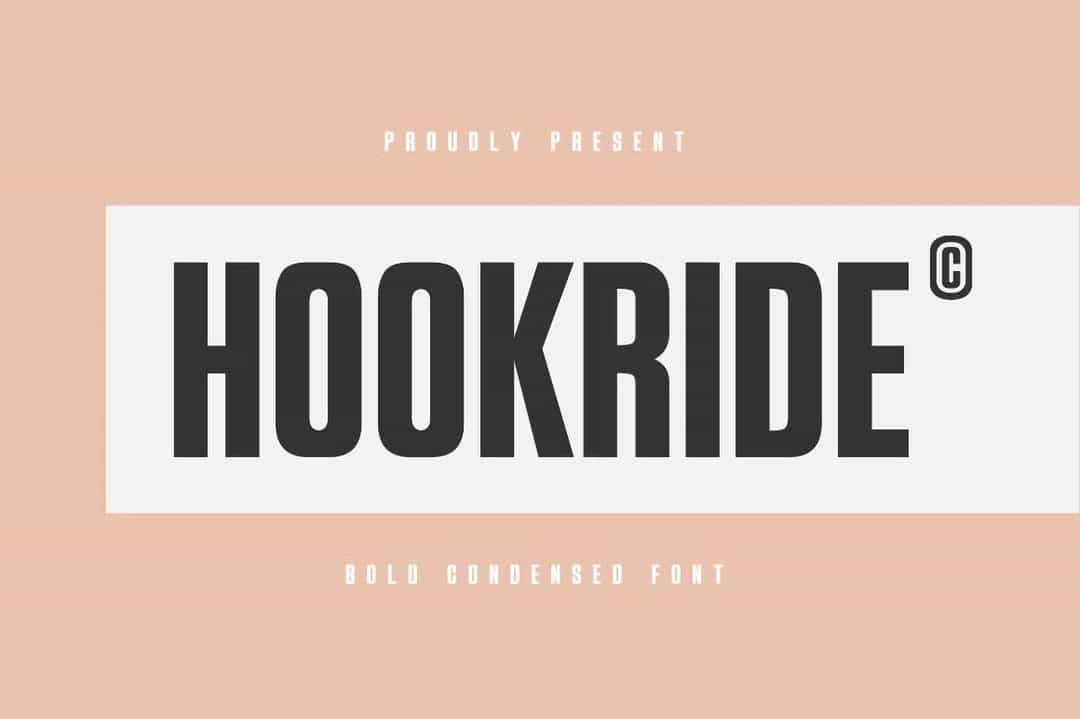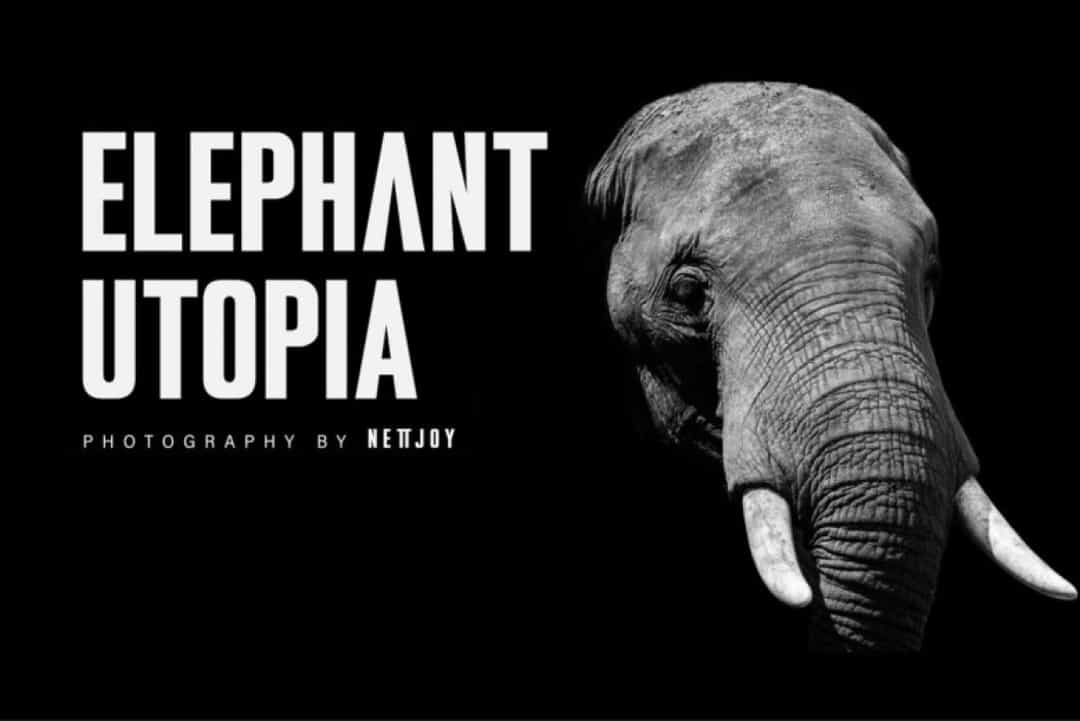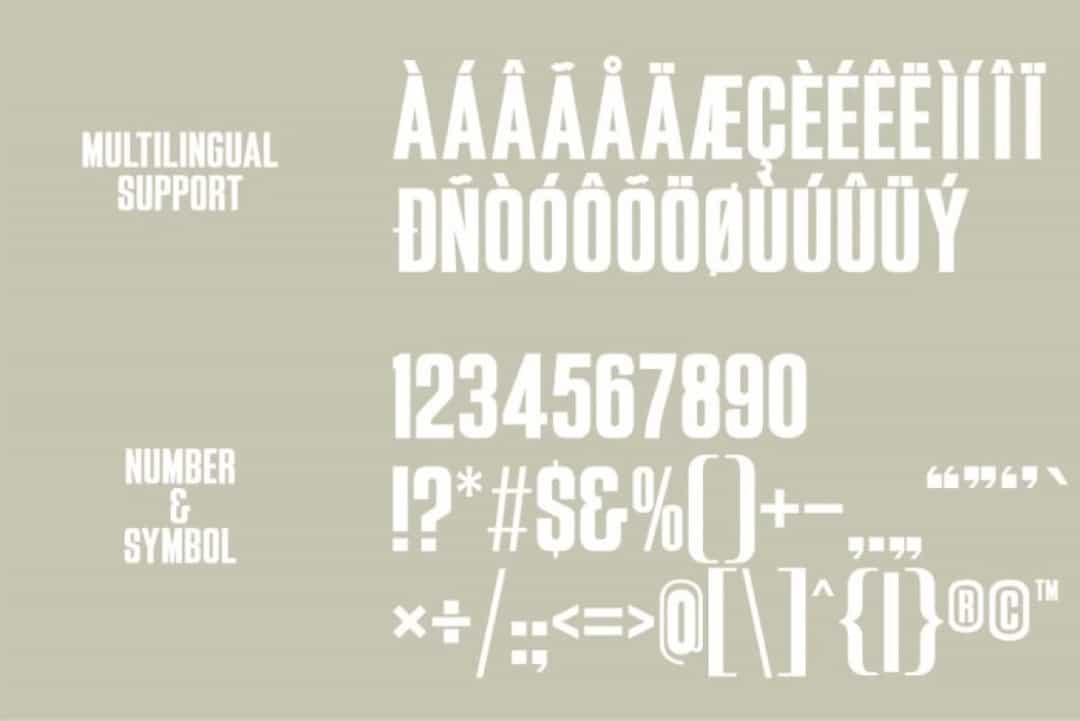
Presenting “Hookride,” an stylish font created to make an impact. Featuring condensed letters this font grabs attention. Radiates a modern vibe. Ideal, for tasks requiring a style, like titles, posters or branding assets. “Hookride” injects an element of elegance and effectiveness into your designs guaranteeing they shine with an up, to date look.